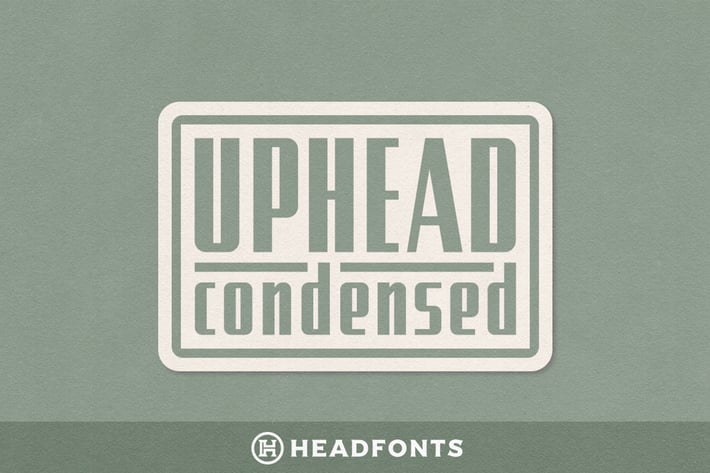
Uphead Condensed Typeface Font
Uphead is a strong and retro sans serif. Inspired by the street signs of Eastern Europe, it's robust and uncompromising style is felt through the controlled letterforms and modern touches. A balance of hard lines and smooth curves. The font can stand on its own, dynamic and authoritative.
Uphead Condensed is a perfect font for industrial logo designs, headers, small and block text.